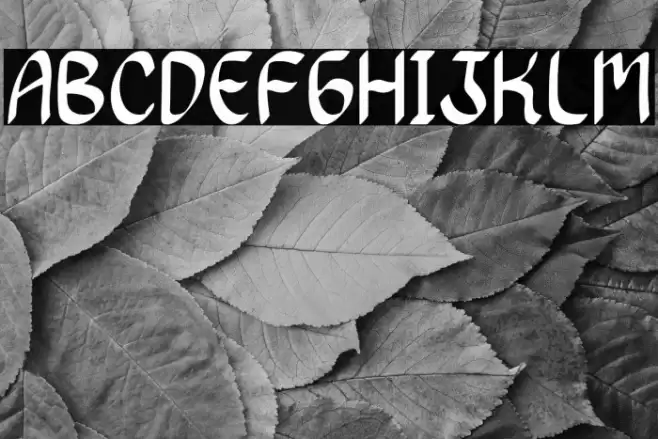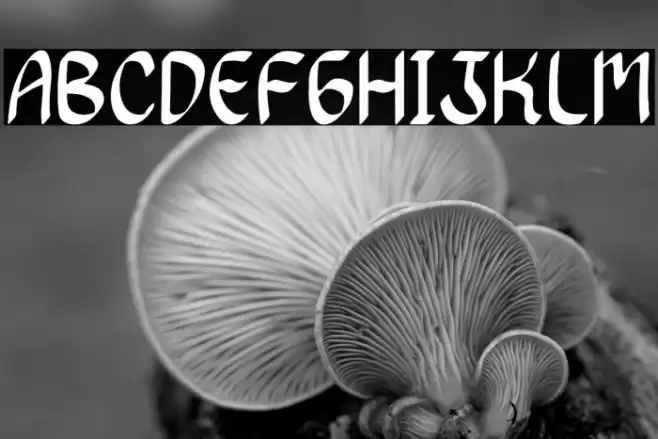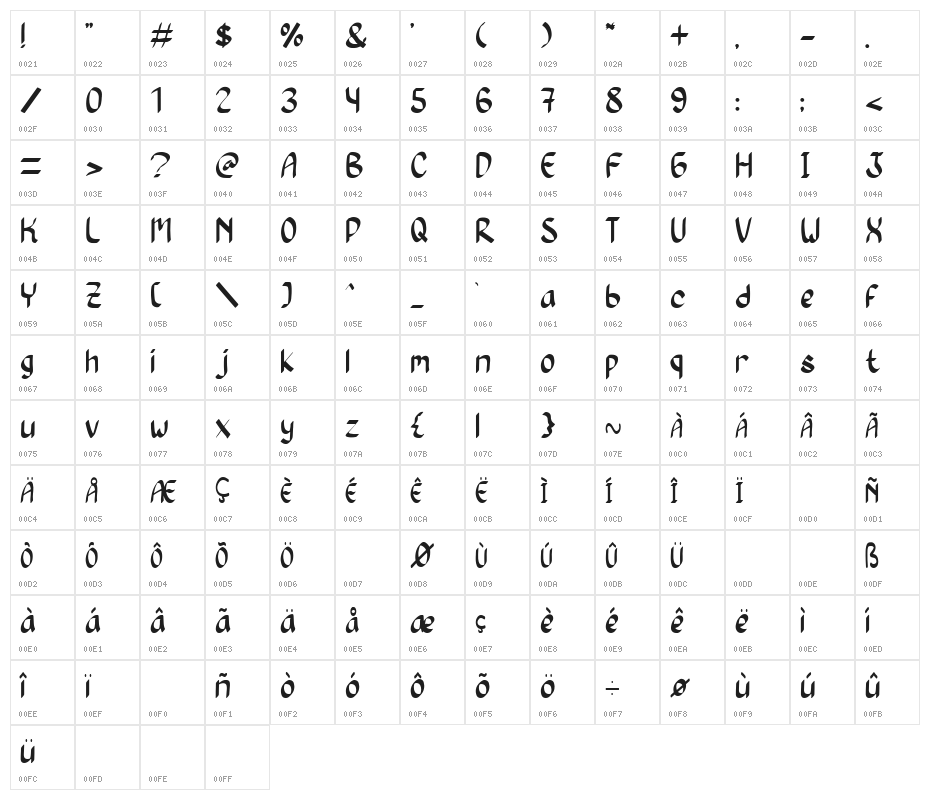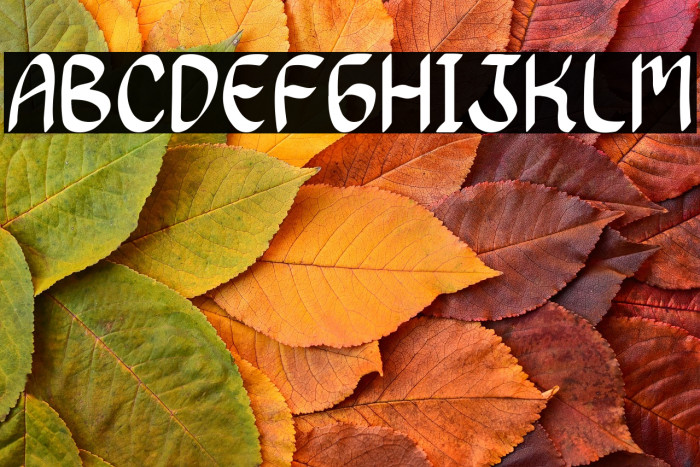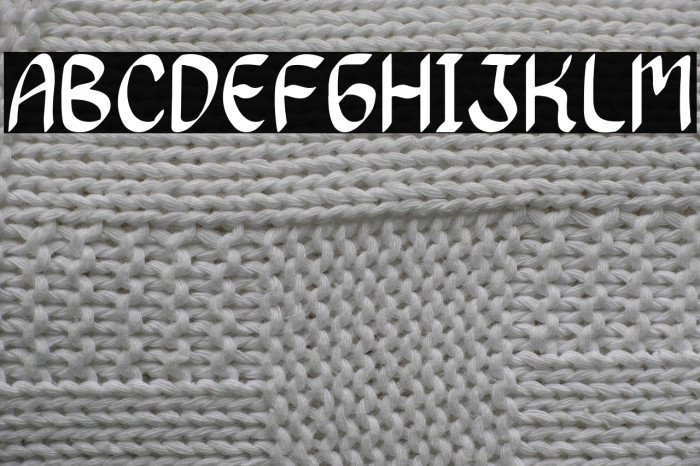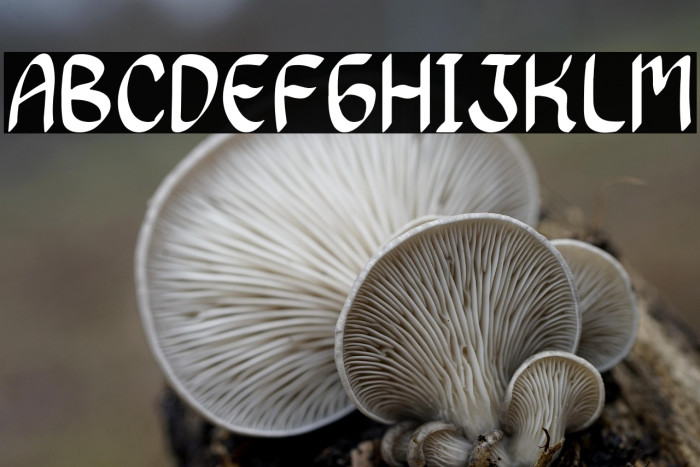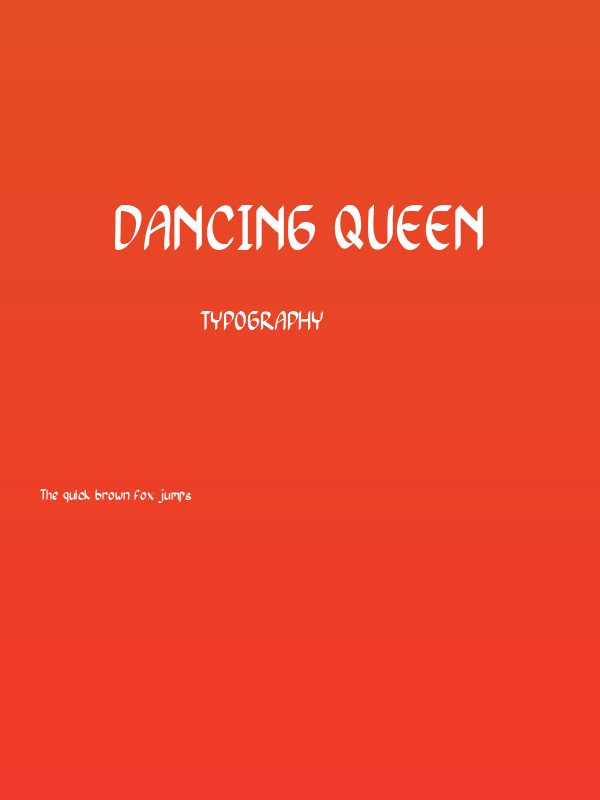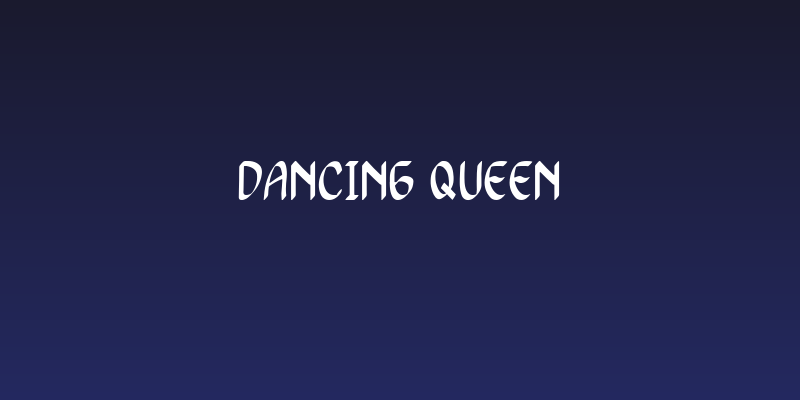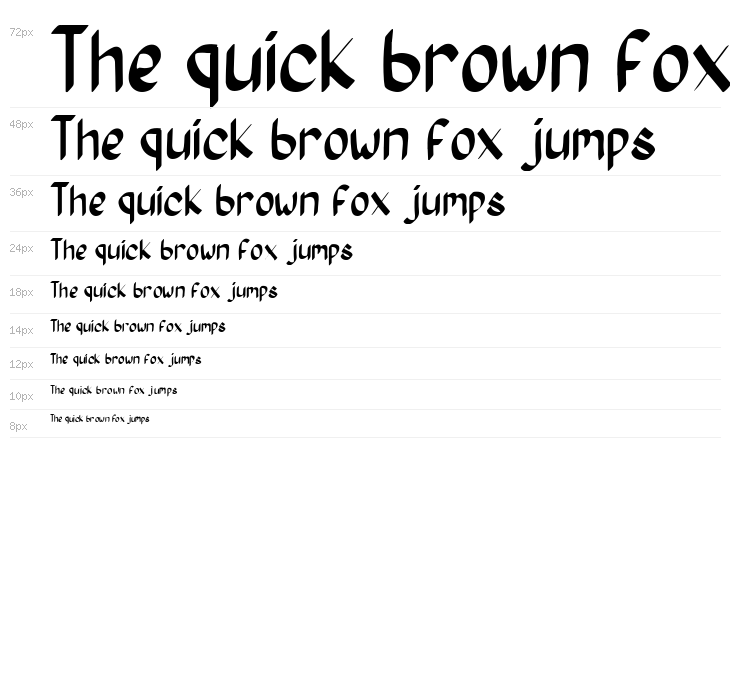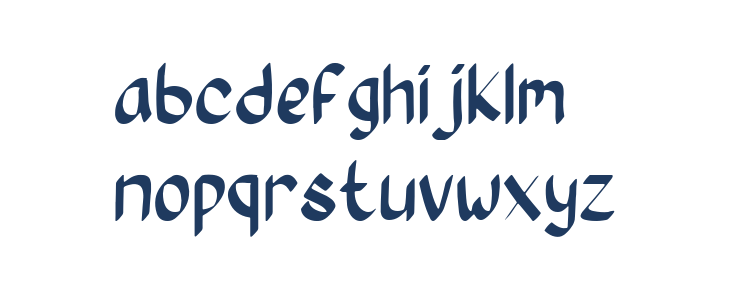
Dancing Queen Font
Dancing Queen Description
This font features a playful and dynamic style, characterized by its flowing, cursive-like strokes that give it a sense of movement and energy. The letters have a slightly irregular form, adding to the whimsical and informal feel. The uppercase letters are bold and prominent, while the lowercase letters maintain a consistent flow, enhancing readability. Numbers and special characters follow the same lively design, making them suitable for creative projects. The overall appearance is both artistic and approachable, making it ideal for designs that require a touch of personality and flair.
A playful, dynamic font with flowing, cursive-like strokes and a whimsical feel from Uncategorized fonts.
Dancing Queen UPPERCASE
Dancing Queen LOWERCASE
Dancing Queen OTHER CHARS